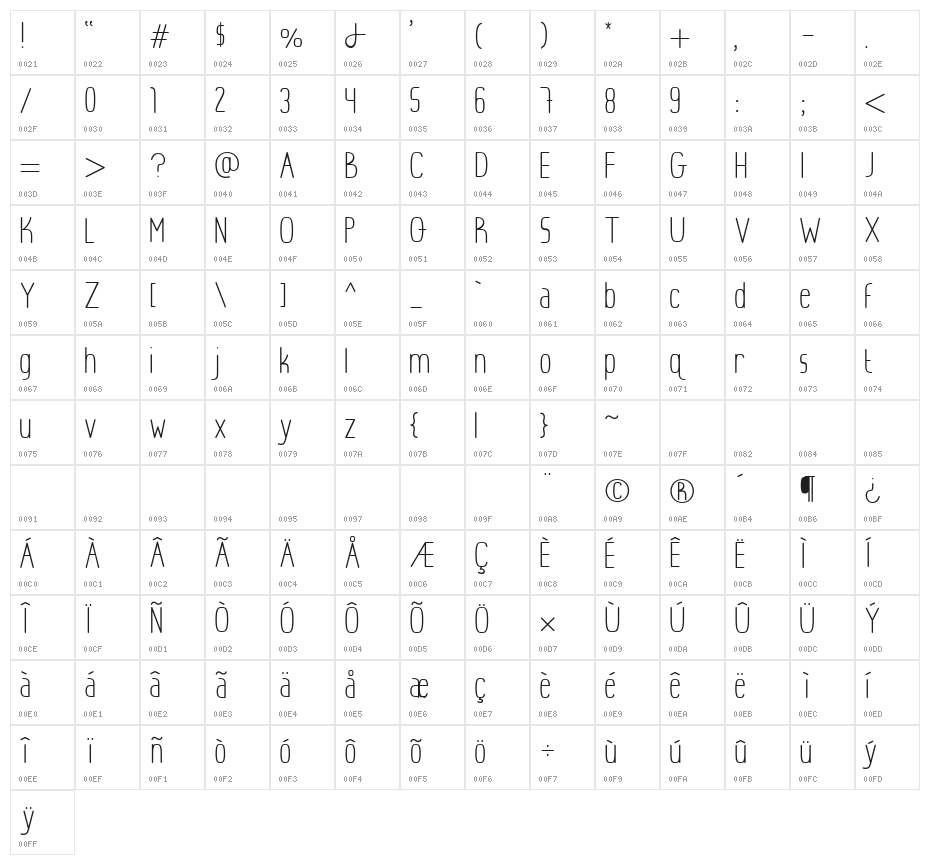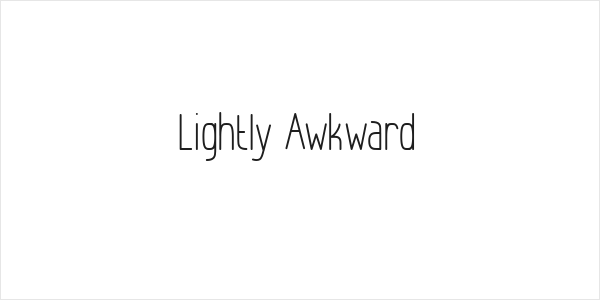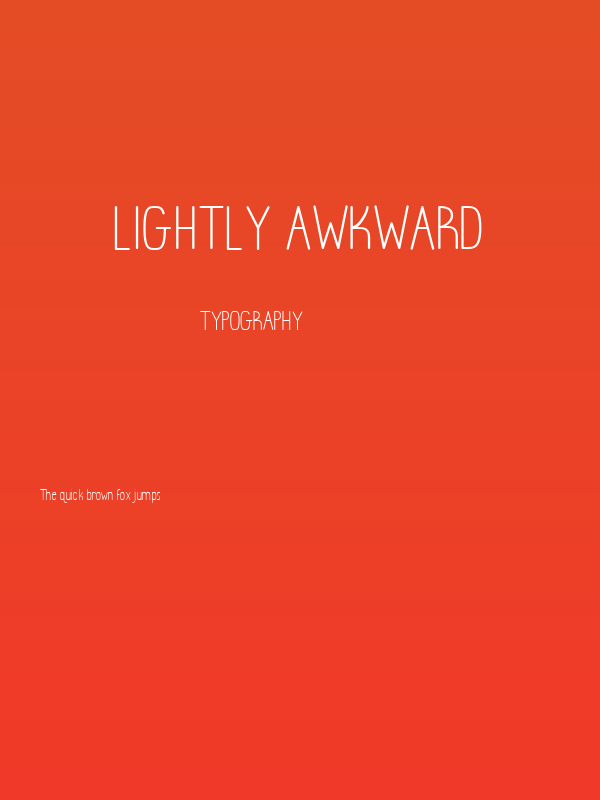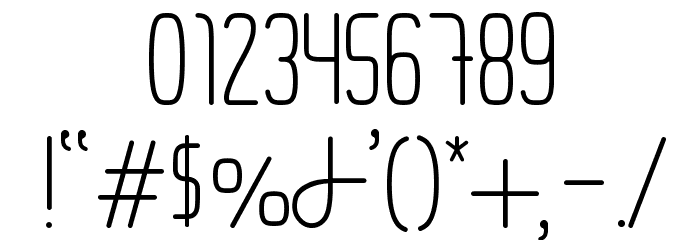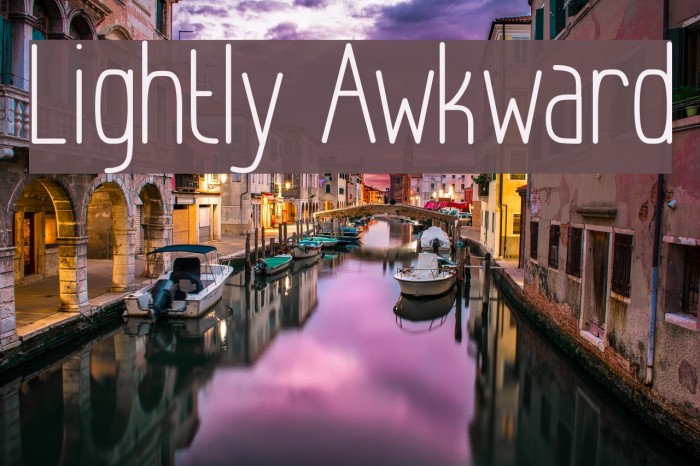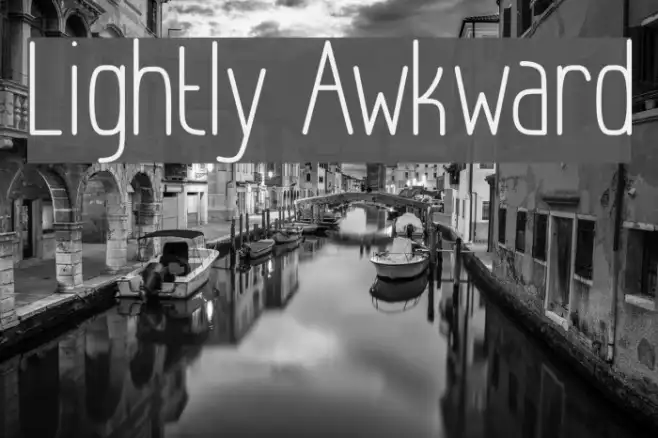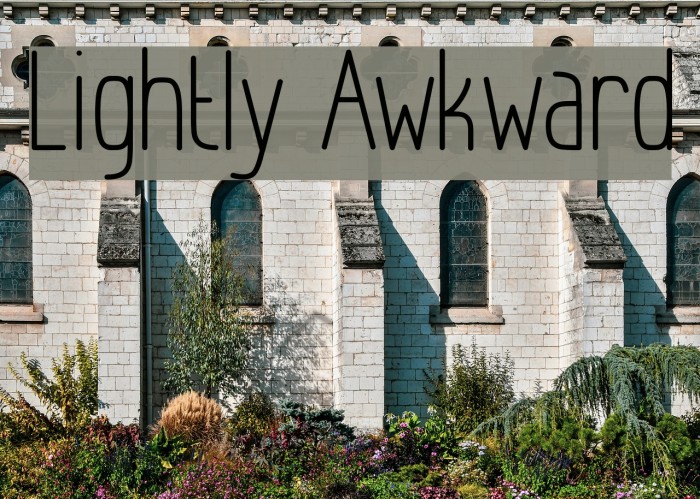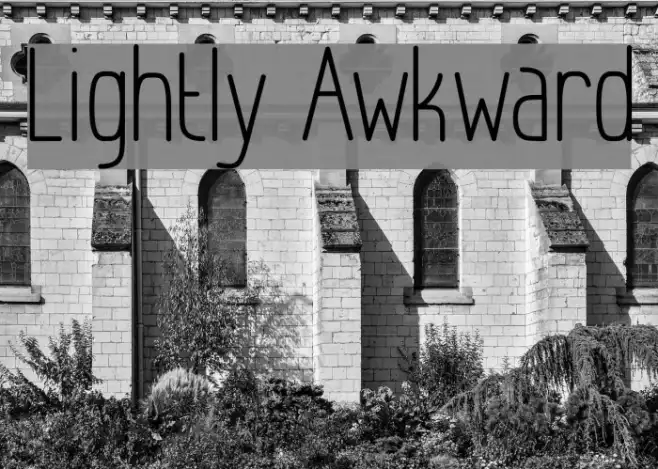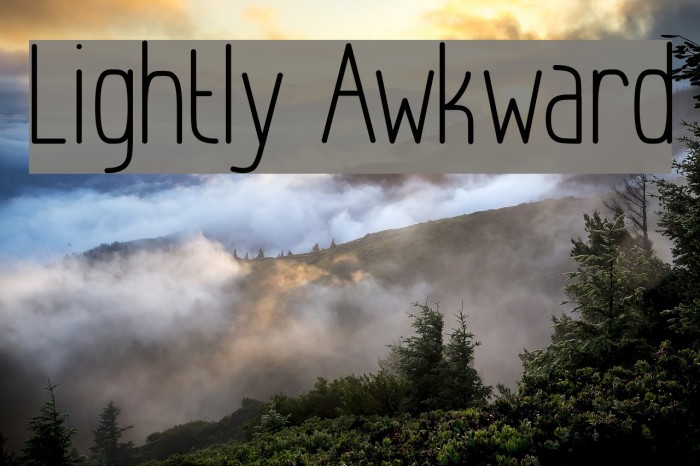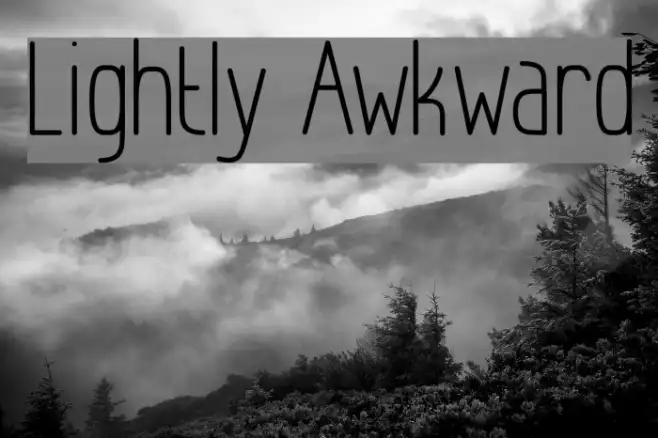
Lightly Awkward Font
Lightly Awkward Description
This font features a unique and quirky design with elongated, narrow characters that give it a playful yet sophisticated appearance. The uppercase letters are tall and slightly condensed, while the lowercase letters maintain a consistent height, creating a harmonious balance. The numbers and special characters follow the same stylistic approach, ensuring uniformity across all elements. The font's thin strokes and rounded edges contribute to its modern and approachable feel, making it suitable for a variety of creative projects. Its distinctive style is both eye-catching and versatile, perfect for adding a touch of personality to any design.
| Proposed Projects | Ideal for branding, posters, invitations, and creative digital content. |